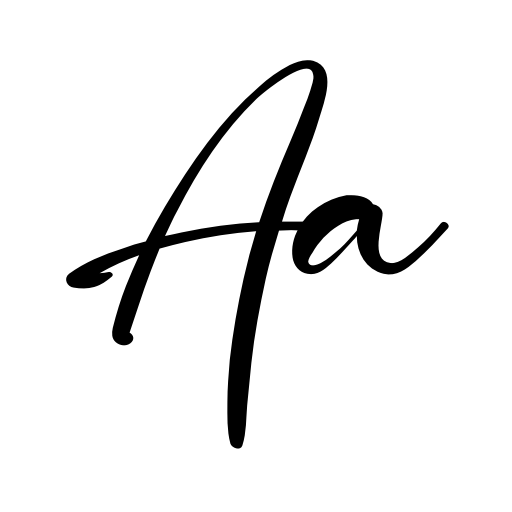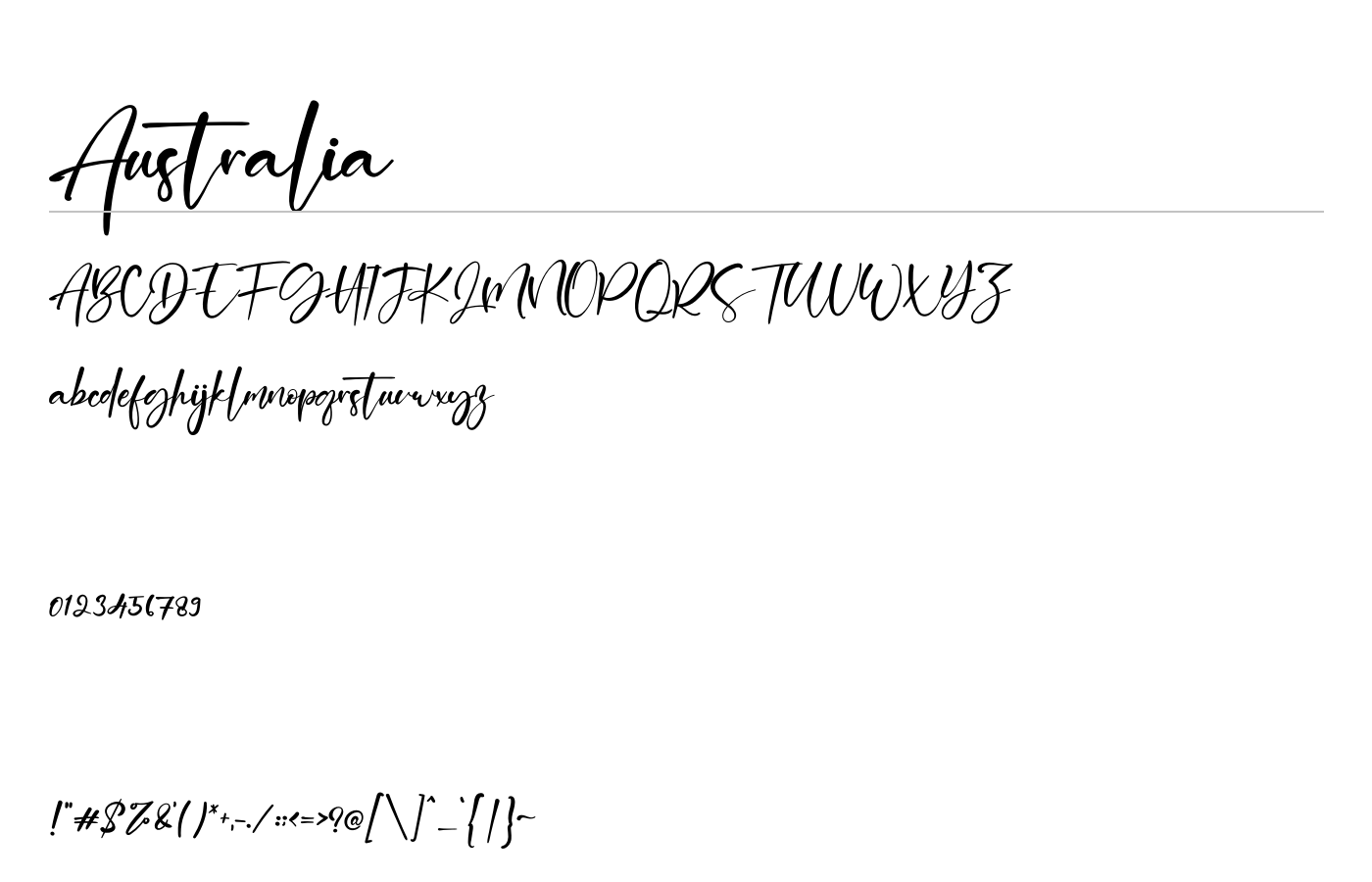
Australia Font is a stylish and modern script typeface featuring elegant, flowing strokes with a natural handwritten feel. It has a light to medium weight with a delicate, slightly condensed width and smooth, calligraphic curves that convey a warm and inviting personality, making it perfect for fashion branding, wedding invitations, and creative logos where a personal touch is desired. Its legible, dynamic letterforms work well in both headlines and short texts, adding a sophisticated yet approachable charm to any design.
Australia Font
About Australia Font